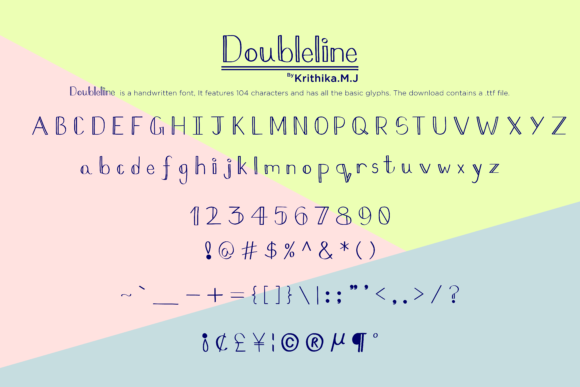
Introducing Doubleline, the exquisite handwritten font that will ignite your creativity and elevate your designs to new heights.
Dive into a world of limitless possibilities with Doubleline, a masterpiece crafted by the renowned Krithika Mj. Its captivating strokes and alluring charm will leave an unforgettable impression on your audience.
Whether you're crafting compelling titles or subheadings that demand attention, Doubleline is your ultimate weapon. Its elegant curves and intricate details will add a touch of sophistication to any project, making your words dance off the page.
Step into the spotlight with Doubleline, the perfect companion for your advertising endeavors. Its bold presence will command attention, ensuring your message stands out from the crowd. Design logos that exude professionalism and create branding that resonates with your target audience.
Unleash your imagination with Doubleline and transform your merchandise into captivating works of art. Invitations will take on a new level of elegance, inviting guests to immerse themselves in a world of unparalleled beauty.
Harness the power of Doubleline for your social media posts, captivating your followers with visually stunning content that will leave them craving more. Its versatility extends seamlessly to web and print, empowering you to create breathtaking designs that will captivate all who behold them.
Don't settle for ordinary fonts. Embrace the extraordinary with Doubleline, a font that will ignite your passion and empower you to create designs that defy the boundaries of imagination. Let your creativity soar and experience the transformative power of Doubleline today!